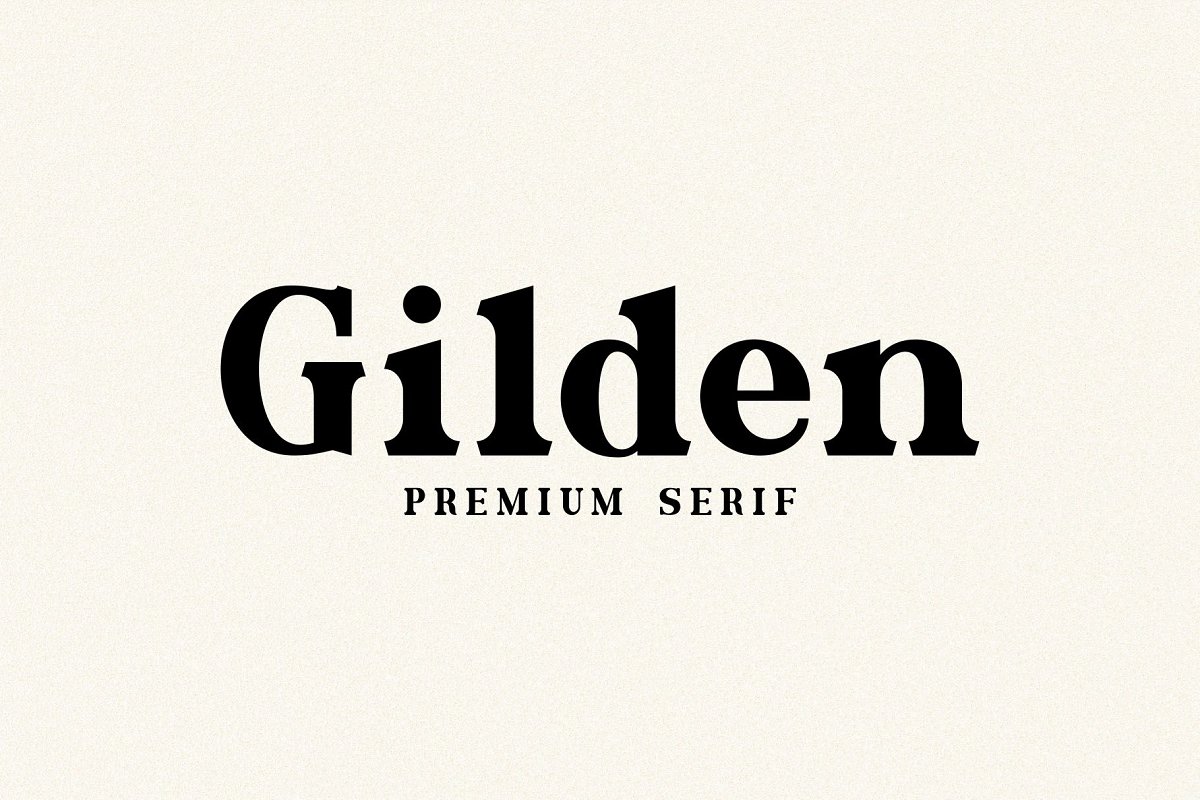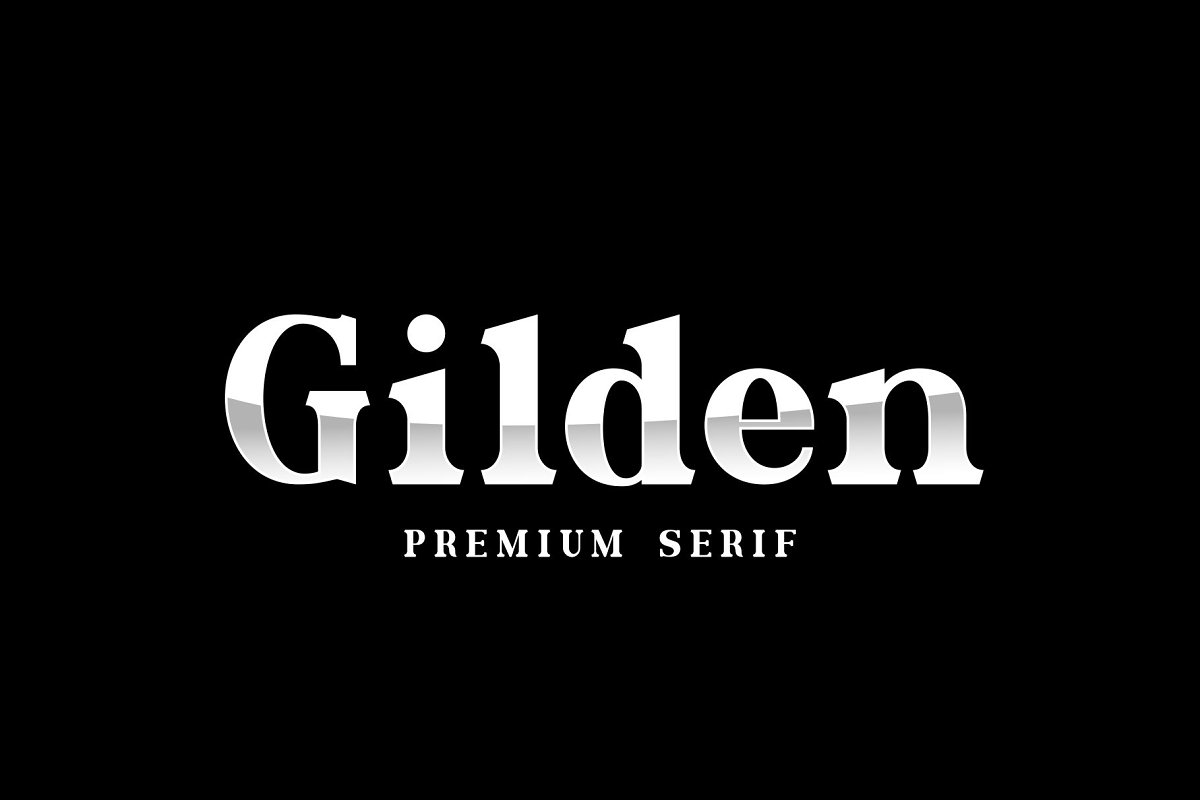
About the Gilden Font
Gilden is a classic Caslon style serif typeface, It’s thick curves give a 70s groovy vibe with the serifs bringing it slightly back to traditional, This versatile font can be used for wordmark logos, mastheads, pull quotes & monograms showing both feminine and masculine qualities, Oft fontWith numbers and punctuationAny Questions, Just ask!